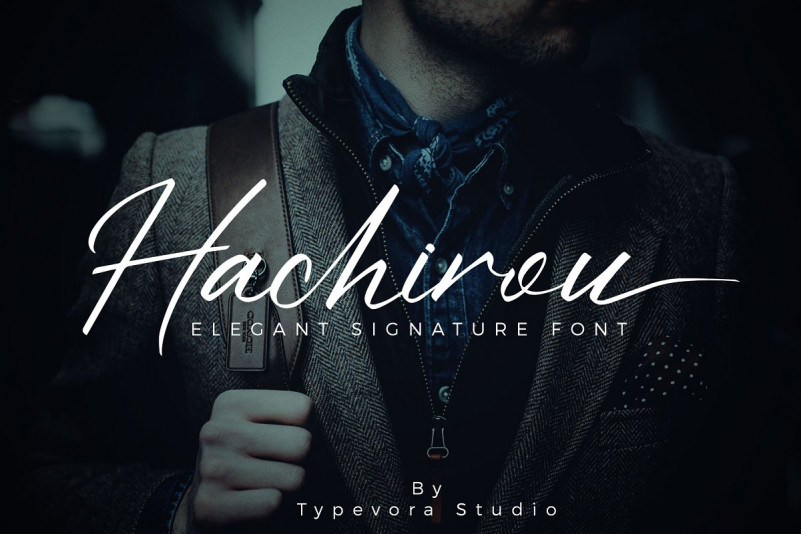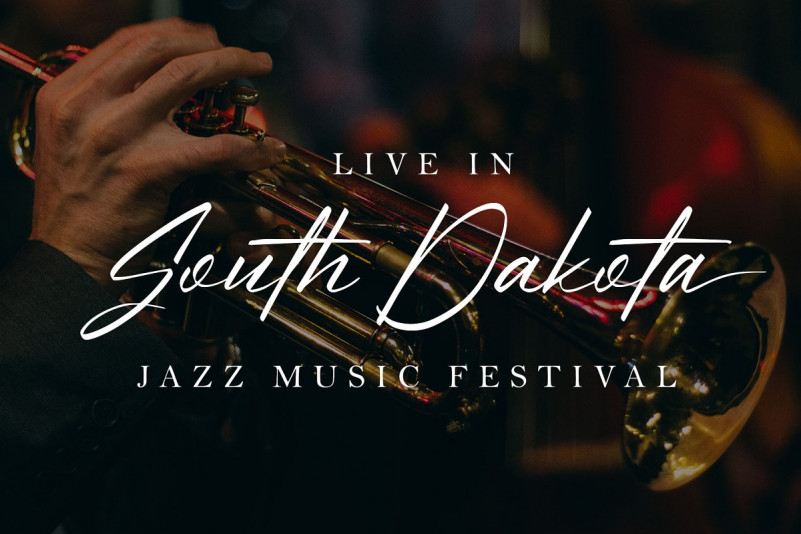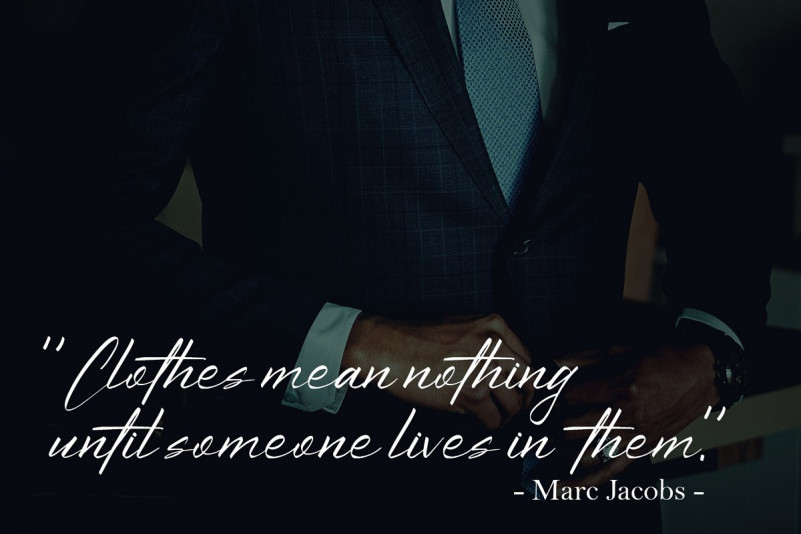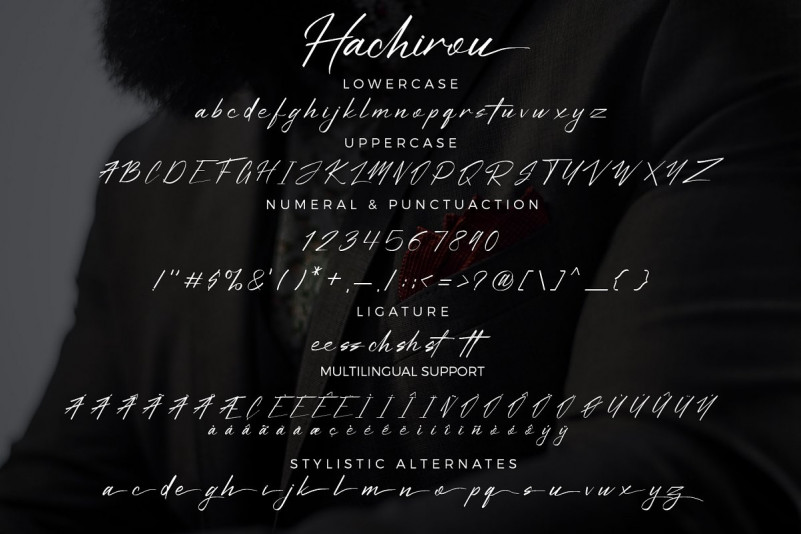
Hachirou Signature Font
Hello Everyone! Hachirou Font is signature monoline font with sophisticated and stylish handwritten. Give your designs an authentic handcrafted feel. It’s a signature and Elegant font perfect for branding, invitation, stationery, wedding designs, social media, advertisements, product packaging, product designs, label, photography, watermark, special events or anything.